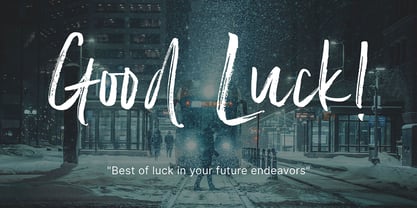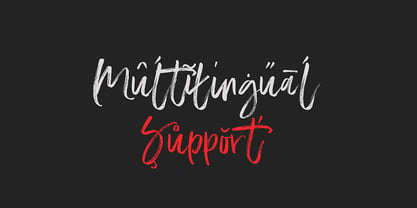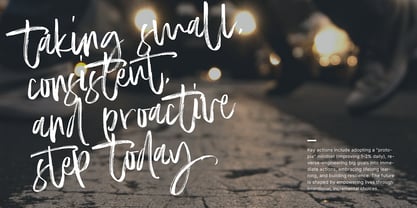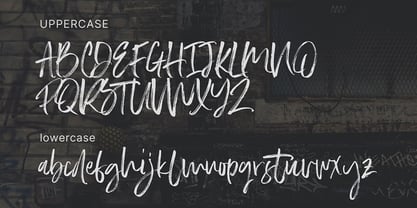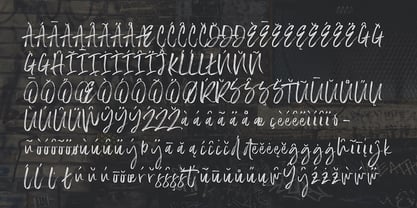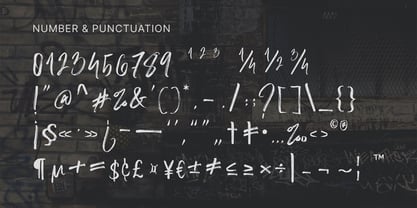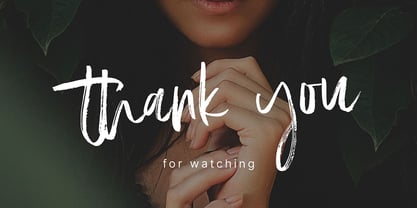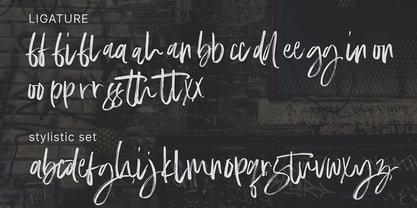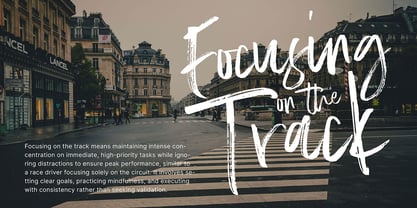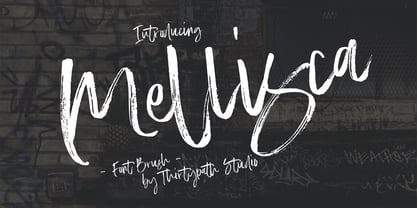
Mellisca
by Thirtypath Studio
The Mellisca Font Family was designed by Herjuna and published by Thirtypath Studio. Mellisca contains 1 styles. More about this family
Mellisca – Font Brush by Thirtypath Studio
Meet Mellisca — a raw, expressive brush font that brings the energy of street art straight to your designs.
Inspired by the bold spontaneity of graffiti culture, Mellisca captures the feeling of a thick brush dragged across a wall — every stroke imperfect, every letter alive. It's the kind of typeface that doesn't whisper. It speaks.
Whether you're designing album covers, apparel graphics, editorial spreads, social media content, or branding that needs serious attitude — Mellisca delivers that authentic, hand-crafted edge that polished fonts simply can't fake.
What's included:
• Full uppercase & lowercase alphabet
• Complete numbers, with superscript variants and fractions
• Extensive punctuation & special characters
• Multilingual support glyphs
From bold display headlines to signature-style logotypes, Mellisca adapts without losing its grit. It's messy in the best way — confident, textured, and impossible to ignore.
Perfect for: streetwear brands, music & entertainment, poster design, packaging, social content, logo design, and any project that calls for personality over perfection.
Good type doesn't blend in. Mellisca makes sure of that.